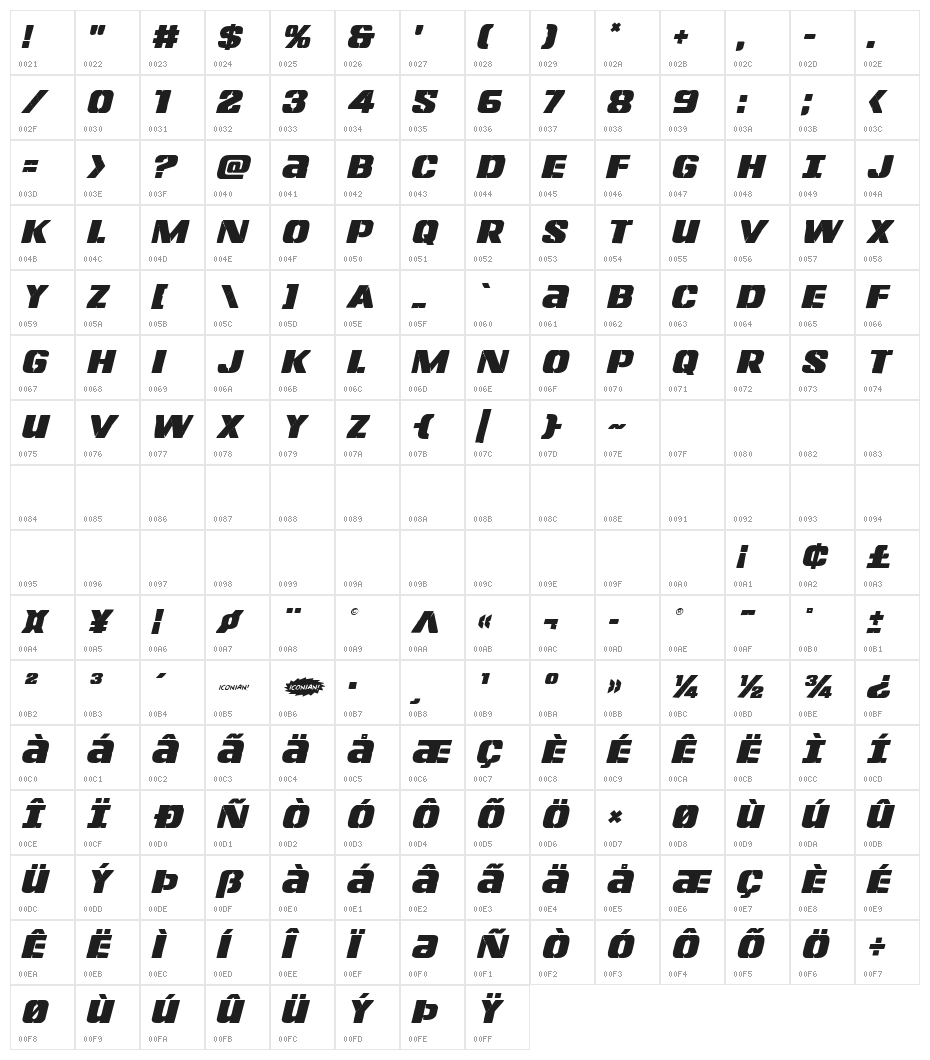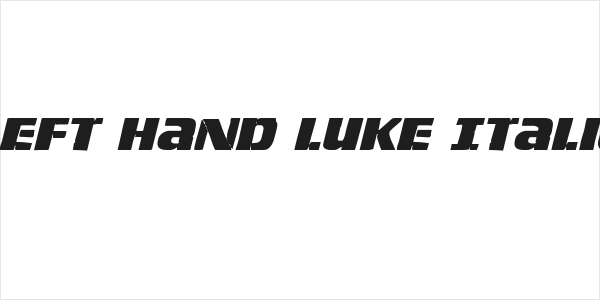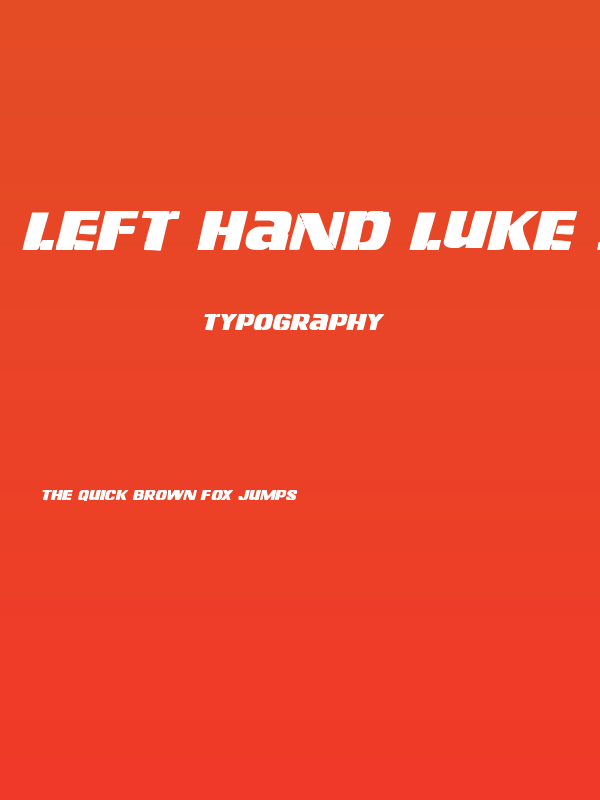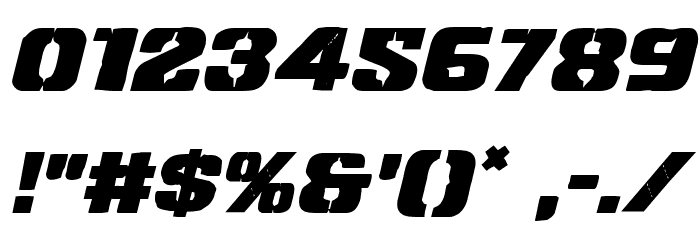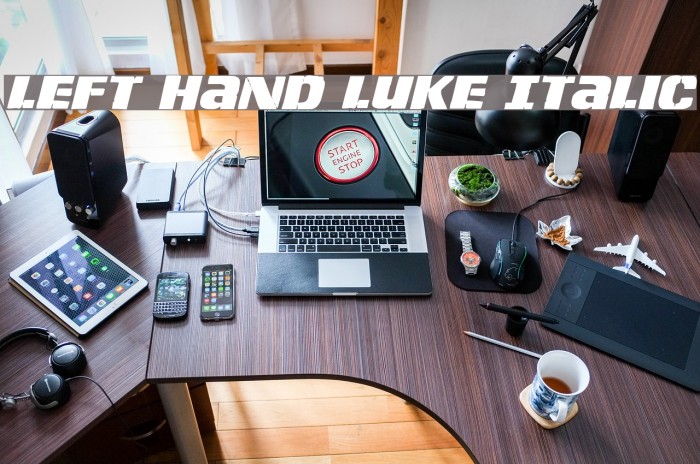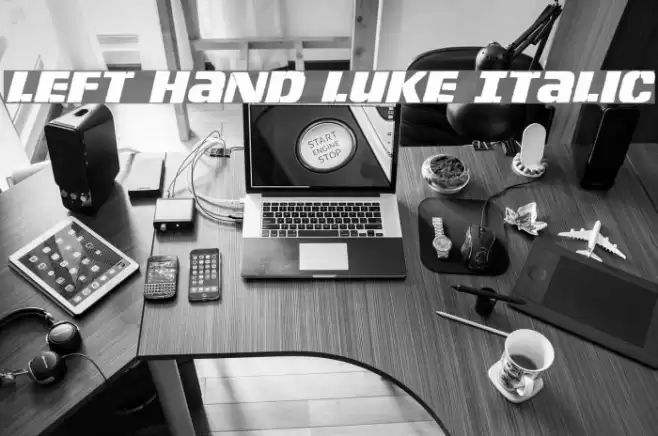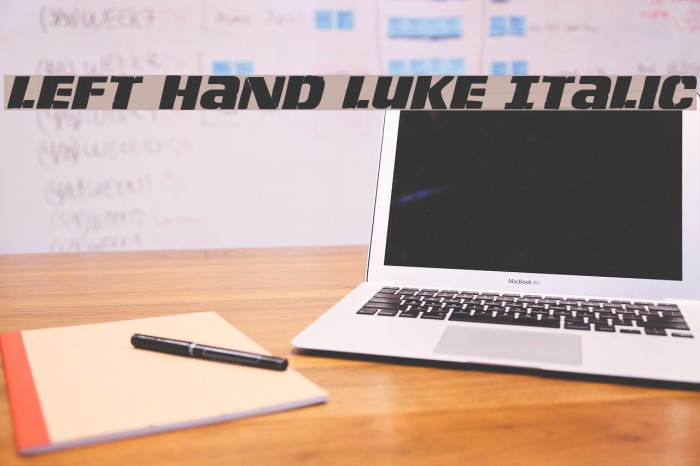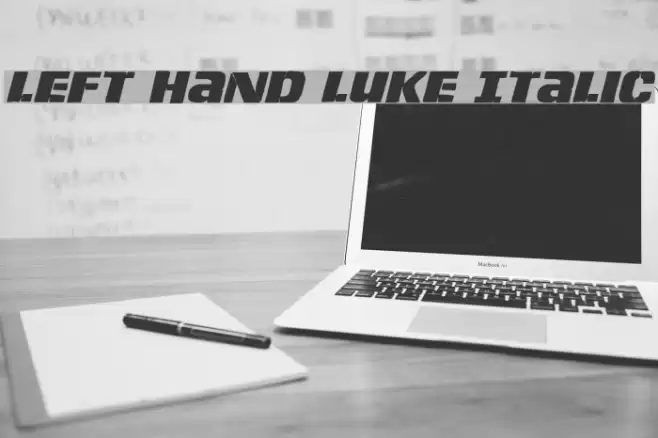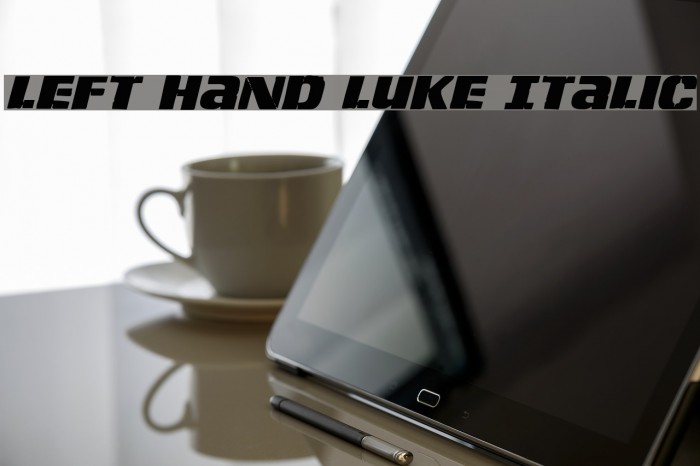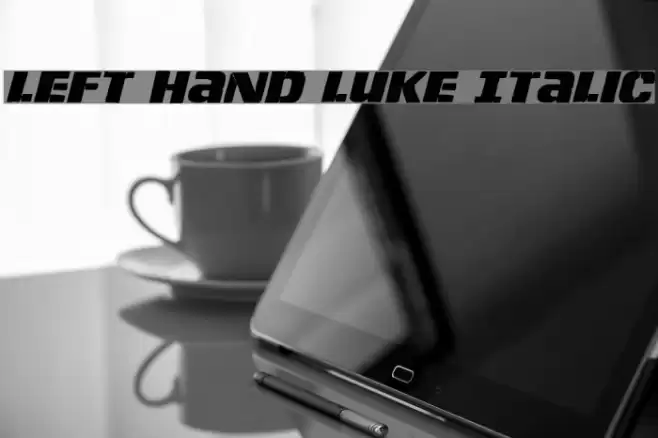
Left Hand Luke Italic Font
✎ Distorted Eroded
Left Hand Luke Italic Description
This font features a bold and dynamic style with a distinct italic slant, giving it a sense of motion and energy. The characters are robust and impactful, with a slightly condensed width that enhances their bold appearance. The strokes are thick and consistent, providing a high contrast that makes the text stand out prominently. The design incorporates sharp angles and clean lines, contributing to a modern and edgy aesthetic. This font is well-suited for projects that require a strong visual impact, such as headlines, posters, and branding materials.
| Categories | Distorted Eroded |
| Width | Condensed |
| Use Case | Headlines, Posters, Branding |
| Proposed Projects | Ideal for use in headlines, posters, branding, and any design requiring a strong visual impact. |